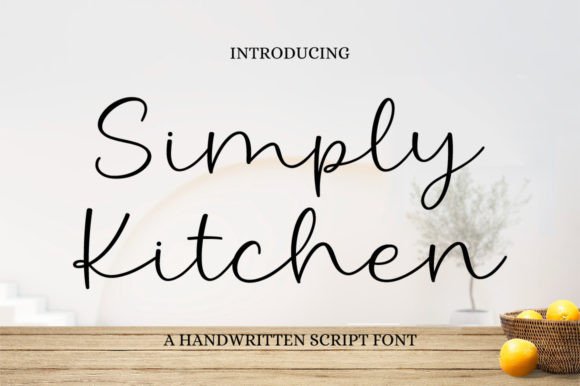
Simply Kitchen Font: Elevate Your Designs with Elegance and Sophistication
When it comes to creating visually stunning designs, the right font can make all the difference. For those seeking a beautiful, well-balanced, and graceful script font, Simply Kitchen is an exceptional choice. Defined by smooth curves, this font is perfect for fashion branding or editorial designs that require a touch of elegance and sophistication.
What is Simply Kitchen Font?
Simply Kitchen font is a modern script font designed to bring a sense of luxury and refinement to any design project. Its smooth curves and fluid lines create a beautiful, harmonious flow that is both visually appealing and easy to read. The font’s well-balanced design ensures that it remains legible even at smaller sizes, making it versatile for various applications.
Key Features of Simply Kitchen Font
1. Smooth Curves and Fluid Lines
The defining feature of Simply Kitchen font is its smooth curves and fluid lines. These characteristics give the font its elegant and sophisticated feel, making it ideal for designs that require a high level of refinement.
2. Well-Balanced Design
The font’s well-balanced design ensures that it remains visually appealing and easy to read. This balance is crucial for creating harmonious designs that engage the audience.
3. Versatility
Simply Kitchen font is versatile and can be used for a wide range of design projects. Whether you’re working on fashion branding, editorial designs, or any other project that requires a touch of elegance, this font is an excellent choice.
Use Cases for Simply Kitchen Font
1. Fashion Branding
Fashion branding often requires fonts that exude elegance and sophistication. Simply Kitchen font, with its smooth curves and well-balanced design, is perfect for creating luxurious brand identities that stand out in the fashion industry.
2. Editorial Designs
Editorial designs, such as magazine covers, articles, and advertisements, benefit greatly from the use of elegant and refined fonts. Simply Kitchen font adds a touch of class to any editorial design, making it more visually appealing to readers.
3. Wedding and Event Stationery
The elegant and sophisticated feel of Simply Kitchen font makes it an excellent choice for wedding and event stationery. It adds a touch of luxury and refinement to invitations, menus, and other stationery items.
Tips for Using Simply Kitchen Font Effectively
1. Pair with Complementary Fonts
To create visually stunning designs, consider pairing Simply Kitchen font with complementary fonts. A combination of serif and script fonts can create a beautiful contrast that enhances the overall design.
2. Use Appropriate Font Sizes
The versatility of Simply Kitchen font allows it to be used at various font sizes. However, for optimal readability, ensure that the font size is appropriate for the design medium. For instance, larger font sizes are ideal for headings, while smaller sizes work well for body text.
3. Experiment with Colors and Textures
Simply Kitchen font can be used with a variety of colors and textures to create unique designs. Experiment with different color schemes and textures to find the perfect combination that complements your design.
Simply Kitchen font is a beautiful, well-balanced, and graceful script font that brings elegance and sophistication to any design project. Its smooth curves and fluid lines make it perfect for fashion branding, editorial designs, and other applications that require a touch of luxury. By understanding its key features, use cases, and tips for effective use, designers can leverage Simply Kitchen font to create stunning designs that engage and inspire their audience.
Q: What type of designs is Simply Kitchen font best suited for?
A: Simply Kitchen font is best suited for fashion branding, editorial designs, wedding and event stationery, and any other design project that requires an elegant and sophisticated feel.
Q: Can Simply Kitchen font be used for body text?
A: While Simply Kitchen font is beautiful and elegant, it is best used for headings and titles. For body text, a more readable font may be preferable.